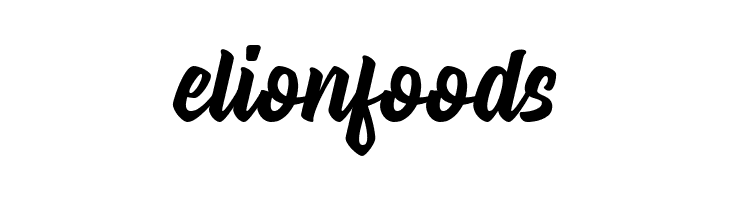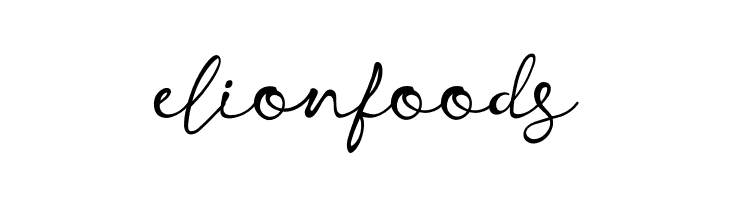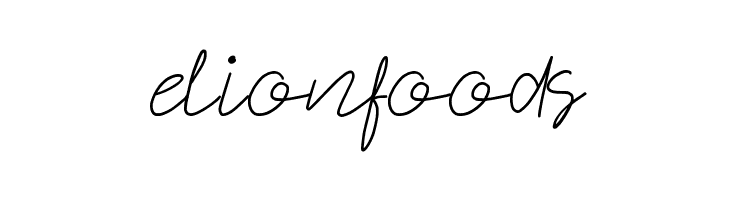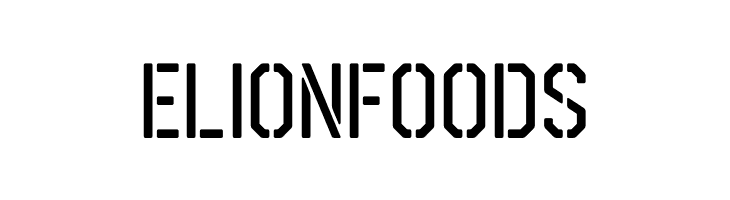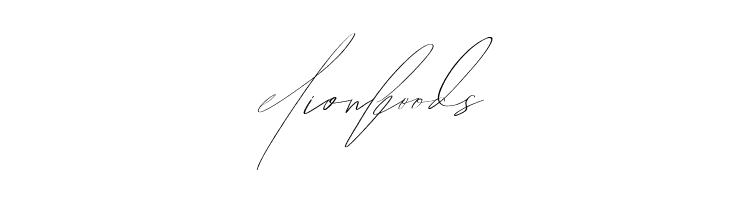
A fluid, cursive font with a personal, handwritten style.
A bold and dynamic script font with fluid strokes.
A playful, casual handwritten font with a light and airy feel.
A flowing, cursive font with a casual, handwritten style.
A cursive, handwritten style font with elegant, flowing strokes.
A casual and elegant handwritten font with fluid, connected letterforms.
A bold, stencil-style font with geometric shapes and industrial appeal.
A delicate, handwritten cursive font with a modern and elegant style.
An elegant and flowing cursive script font with a refined and sophisticated style.
A casual, elegant handwritten font with flowing, interconnected letterforms.